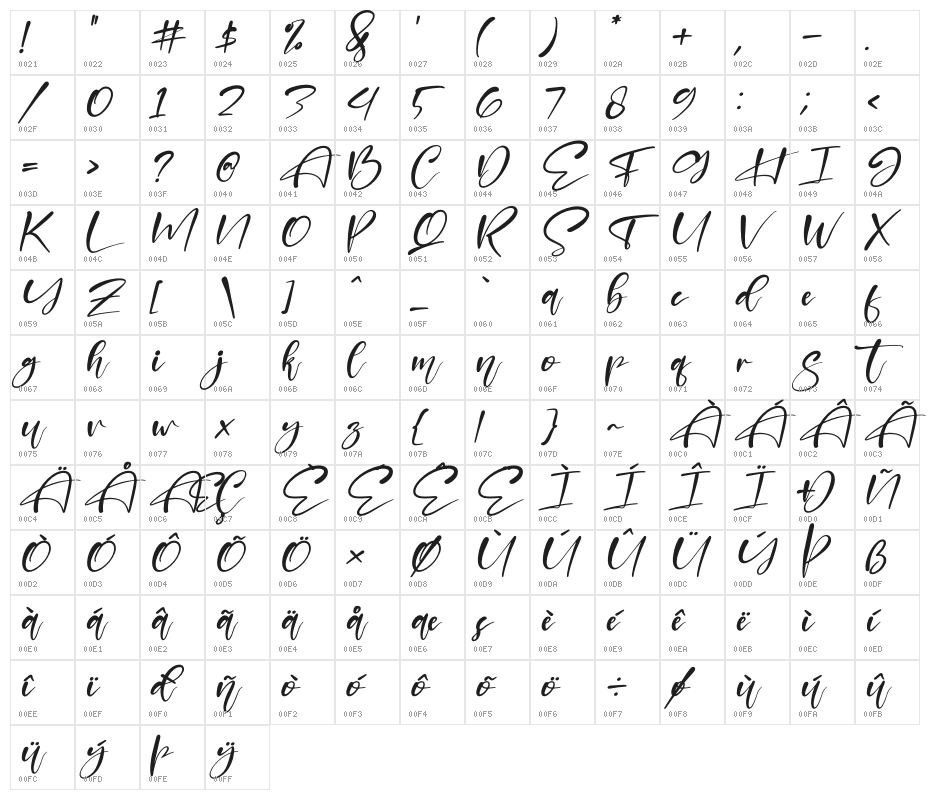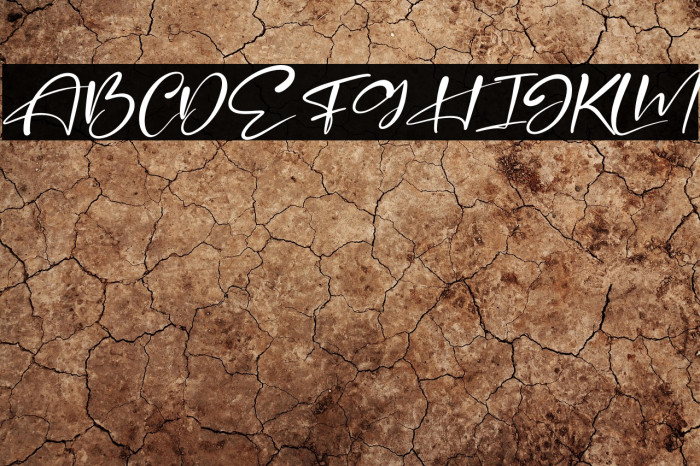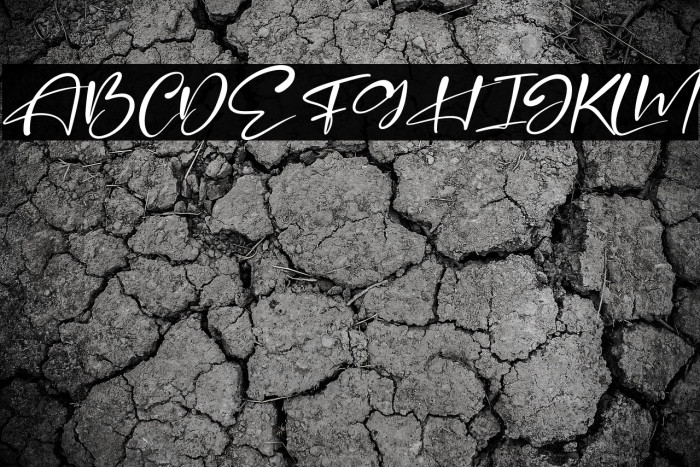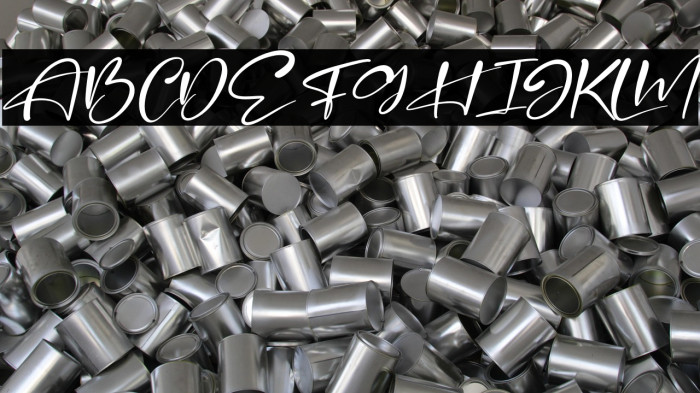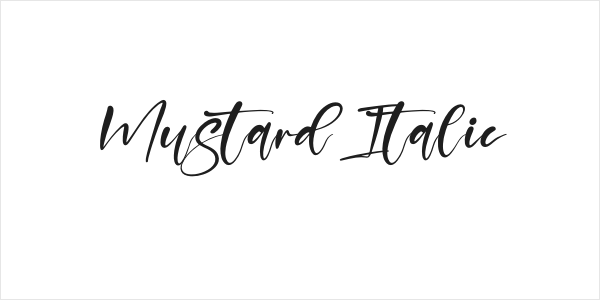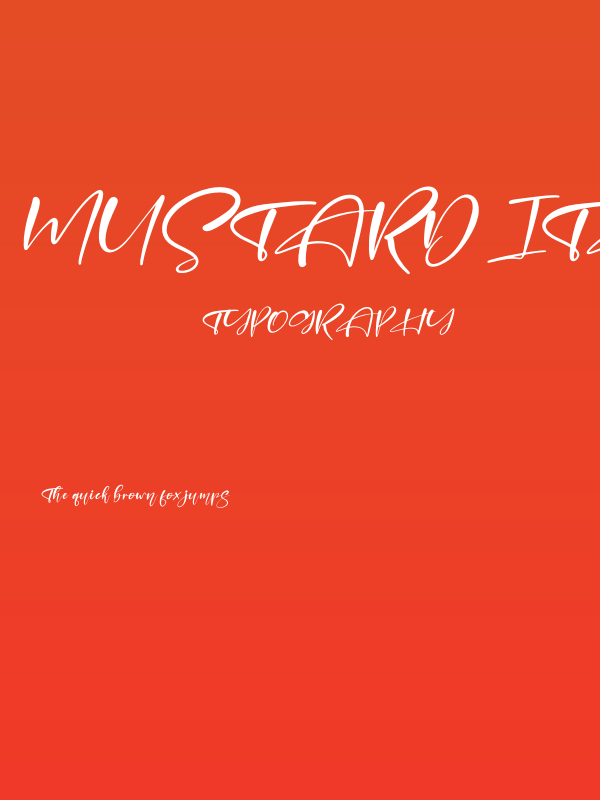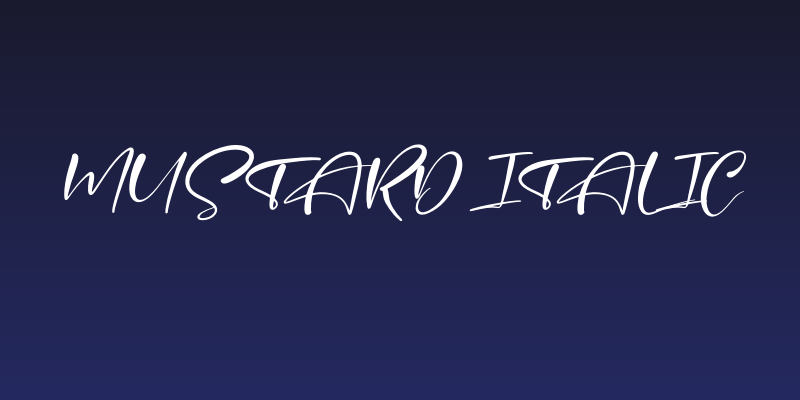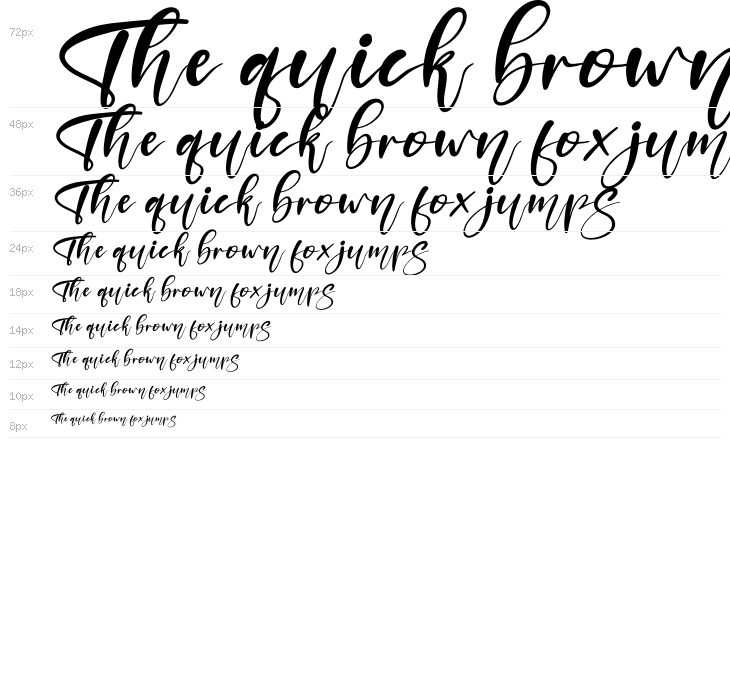
Mustard Italic Font
Mustard Italic Description
This font features a dynamic and flowing script style, characterized by its elegant and fluid strokes. The letters are connected in a cursive manner, giving it a handwritten appearance. The uppercase letters are bold and expressive, while the lowercase letters maintain a consistent flow with varying stroke widths. The numbers and special characters are designed to complement the overall script style, maintaining the same fluidity and elegance. This font exudes a sense of sophistication and creativity, making it suitable for projects that require a personal and artistic touch.
| Use Case | Logos, Headlines, Artistic designs |
| Proposed Projects | Ideal for wedding invitations, greeting cards, branding projects, and artistic designs. |